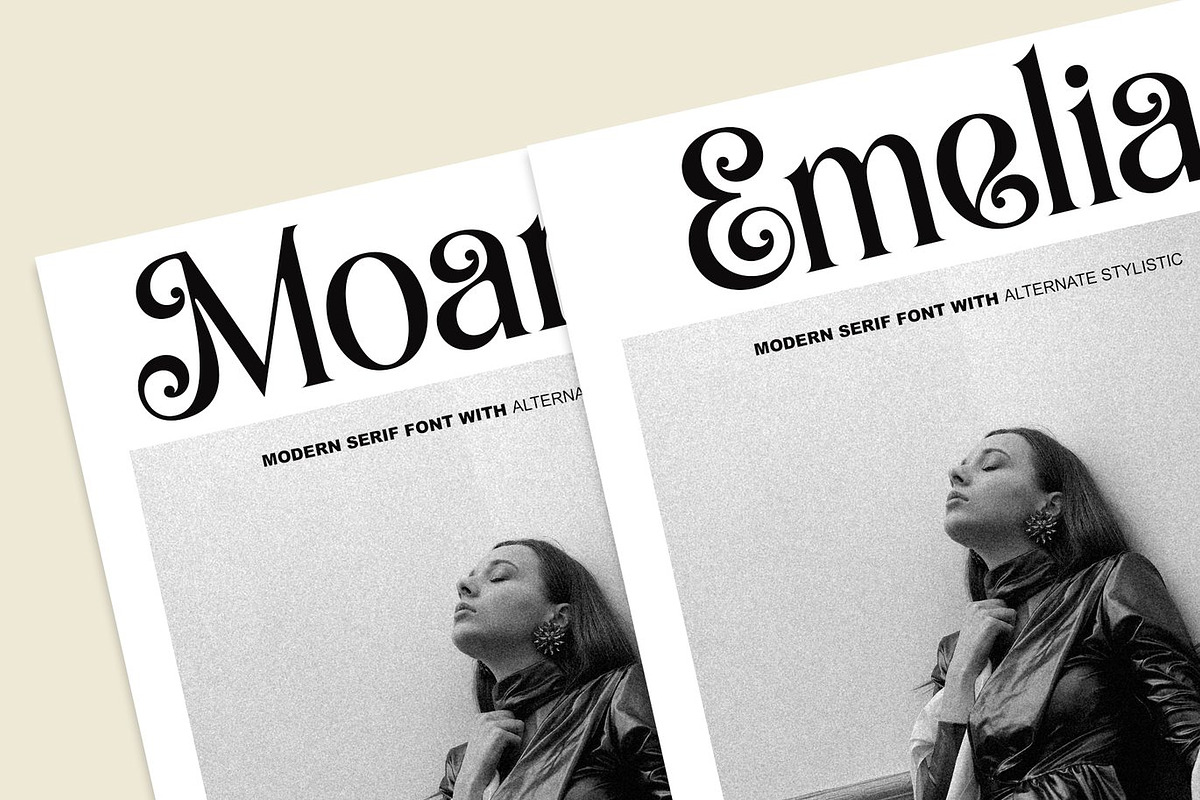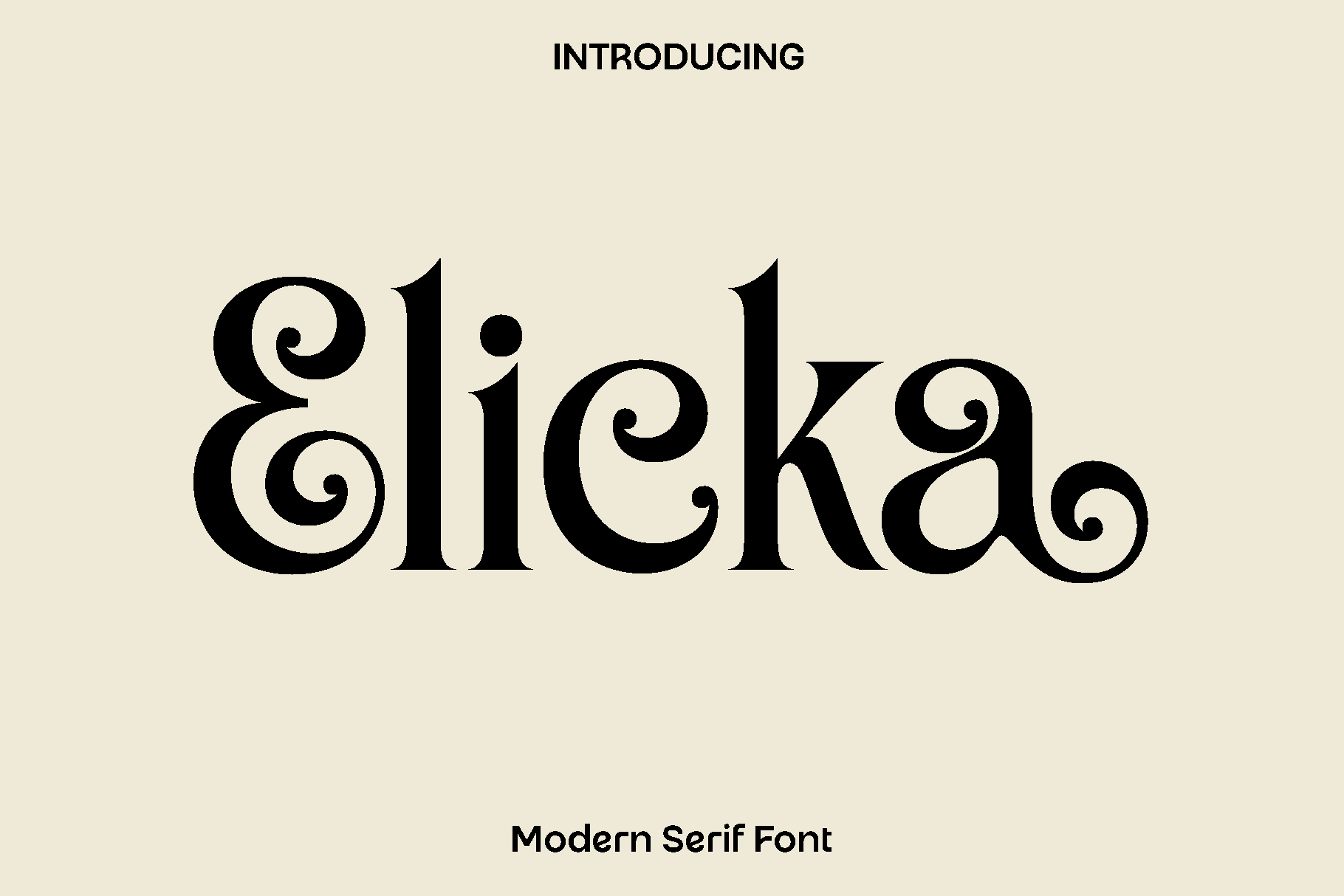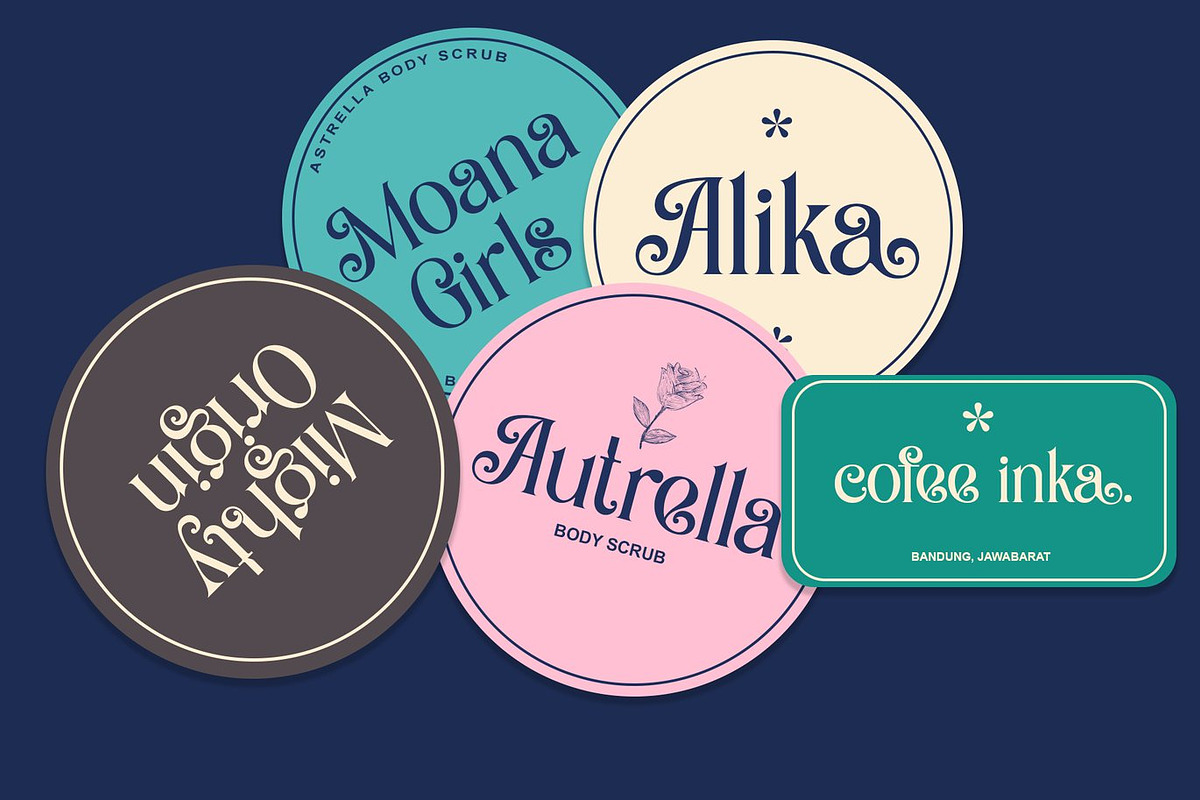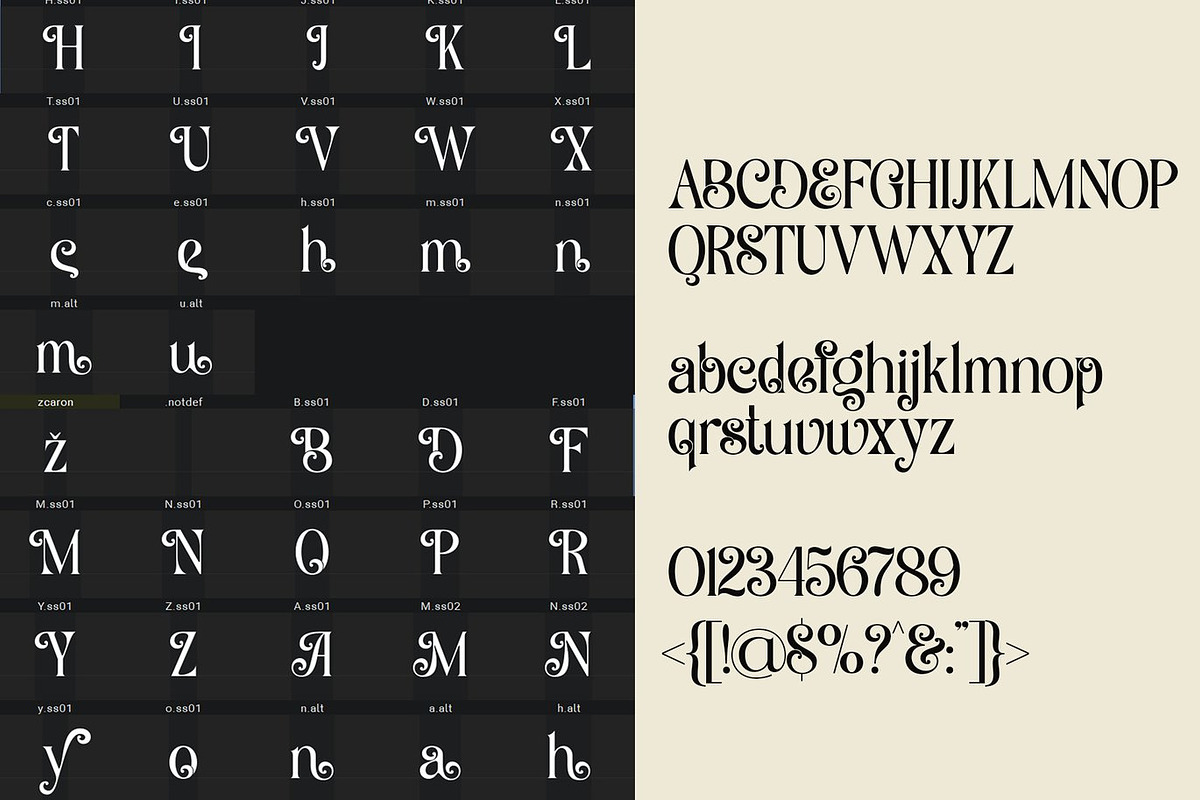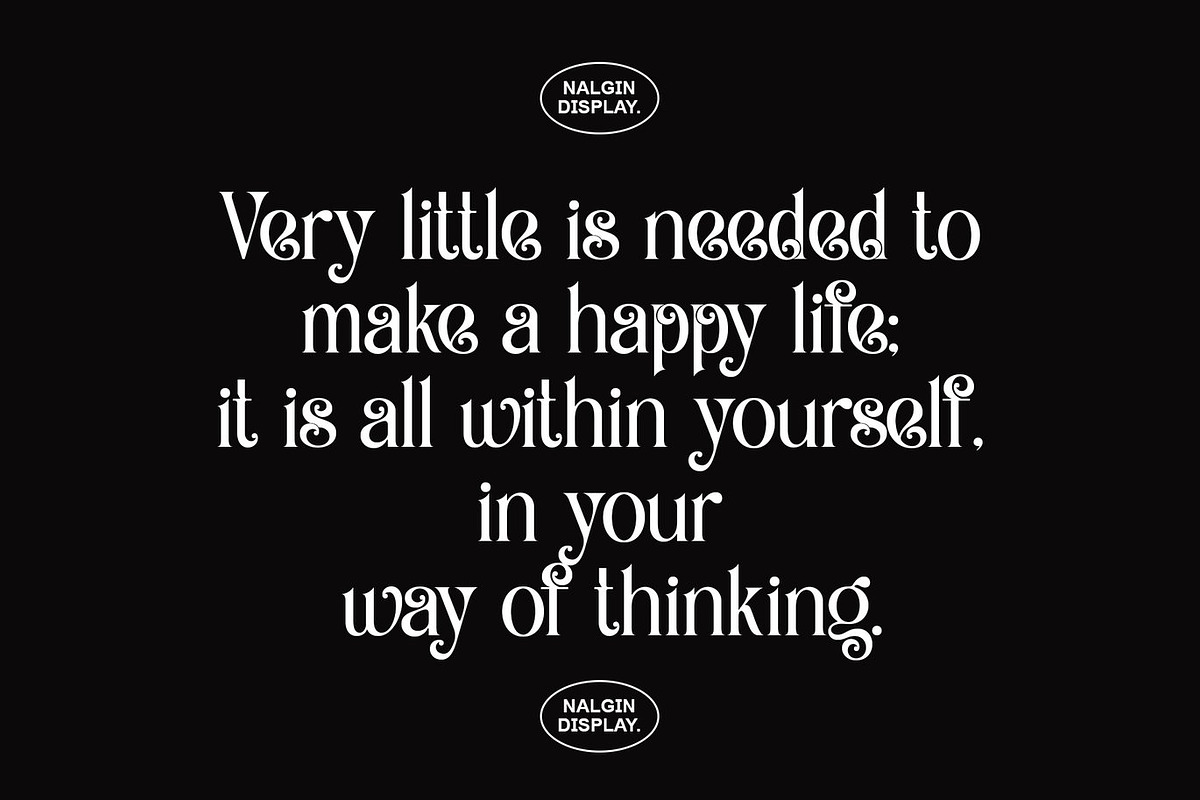
Elicka - Modern Serif Font
Elicka is an elegant and versatile display font designed to bring sophistication and style to a wide range of creative projects. Its refined letterforms and balanced structure make it perfect for designers who want their work to feel modern, polished, and visually striking. Elicka blends contemporary aesthetics with timeless appeal, creating a font that is both functional and expressive.
This font shines in projects such as book covers, magazine layouts, branding, logos, photography overlays, inspirational quotes, blog headers, posters, and advertising materials. Its clarity and readability ensure that it works beautifully in both large display settings and subtle typographic details, while its stylish curves add personality and elegance.
Elicka also comes with a full set of typographic features, including uppercase and lowercase characters, numerals, multilingual support, stylistic alternates, and ligatures, making it a versatile tool for creative professionals. Its design allows for effortless integration across print and digital platforms, elevating every project with sophistication and modern charm.
Elicka Font Features:
• Uppercase and lowercase characters
• Numerals and punctuation
• Stylistic alternates and ligatures
• Functional and multilingual support
Elicka is the perfect choice for designers seeking a font that combines elegance, versatility, and timeless style in one sophisticated package.